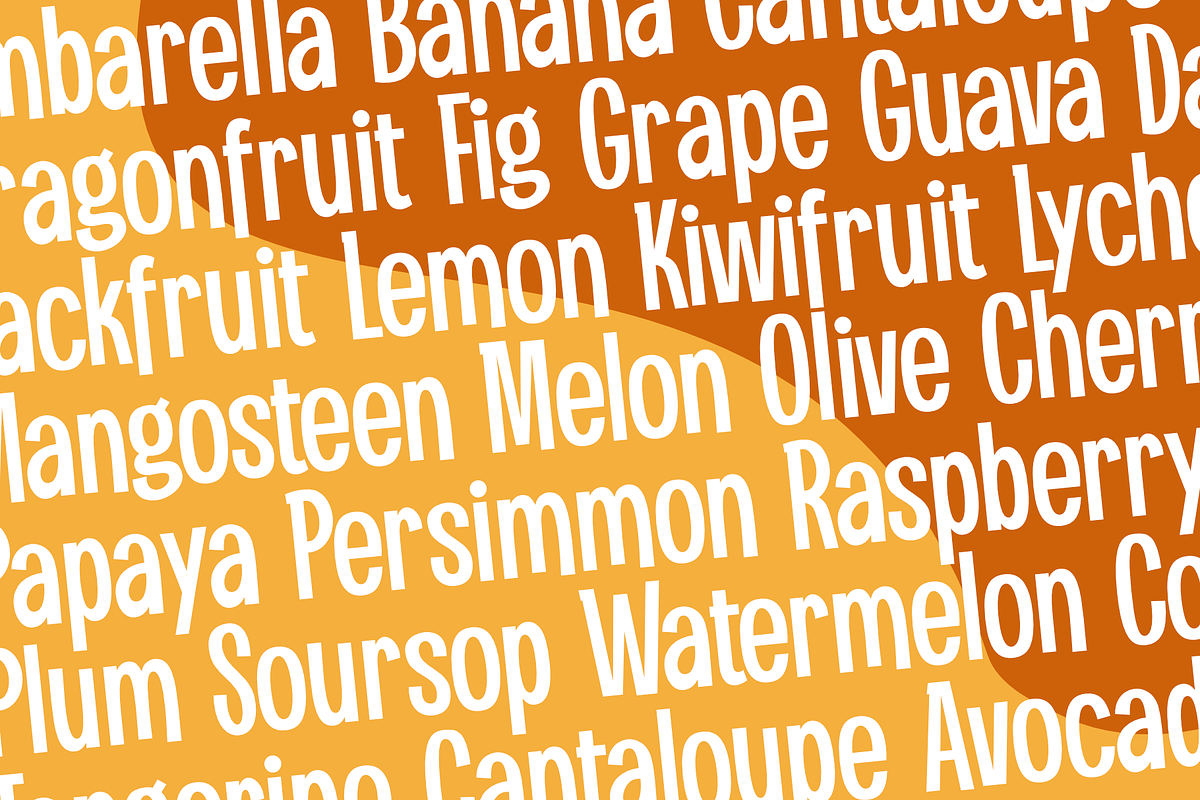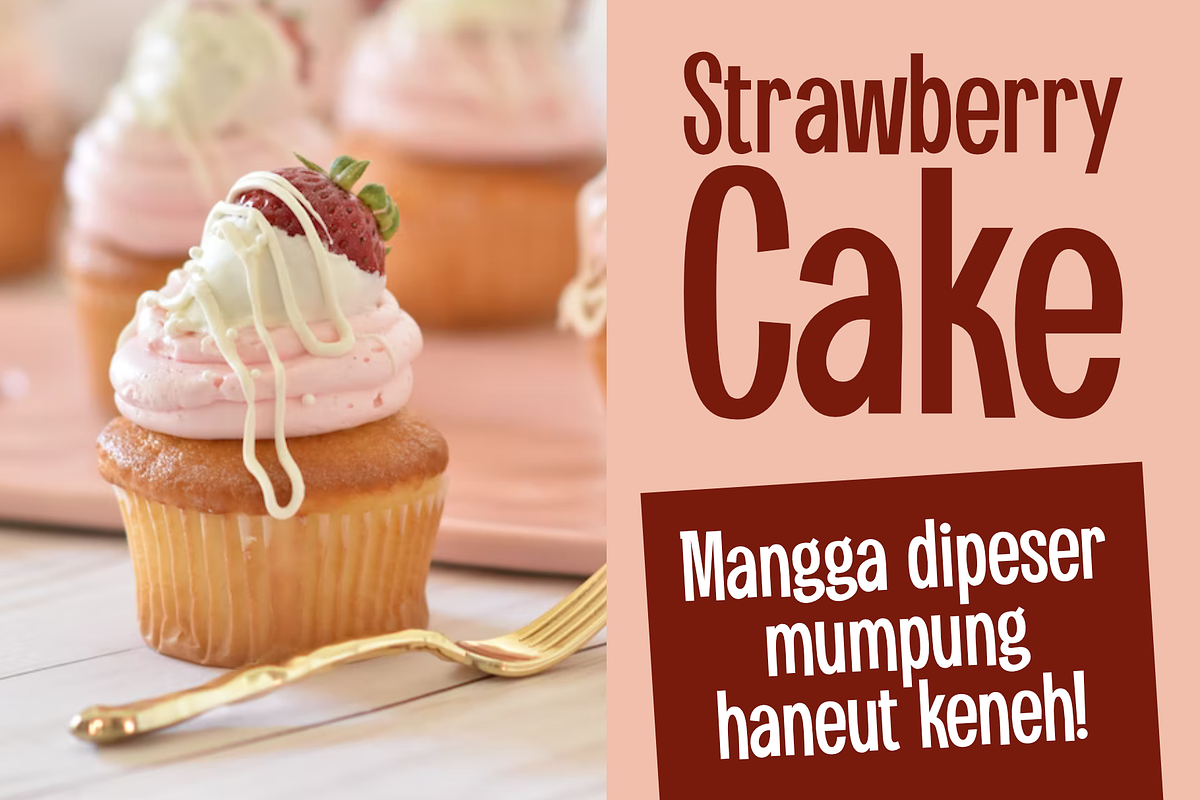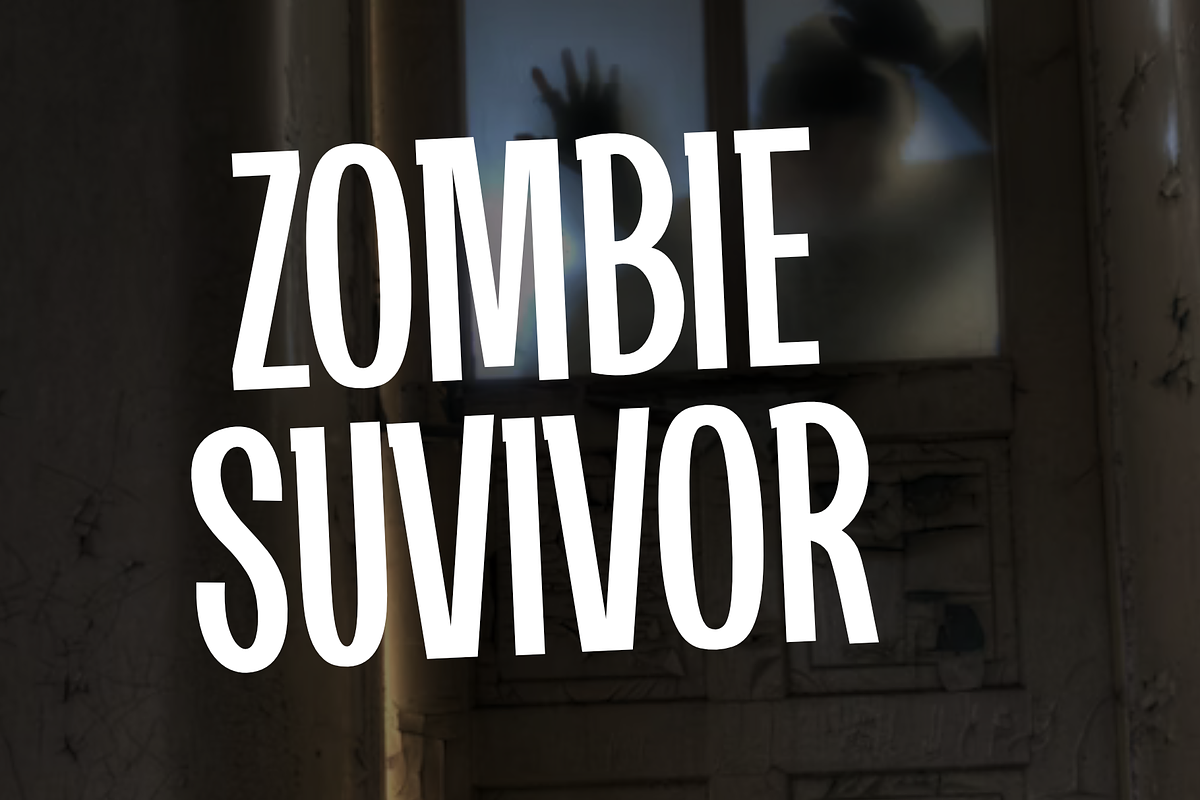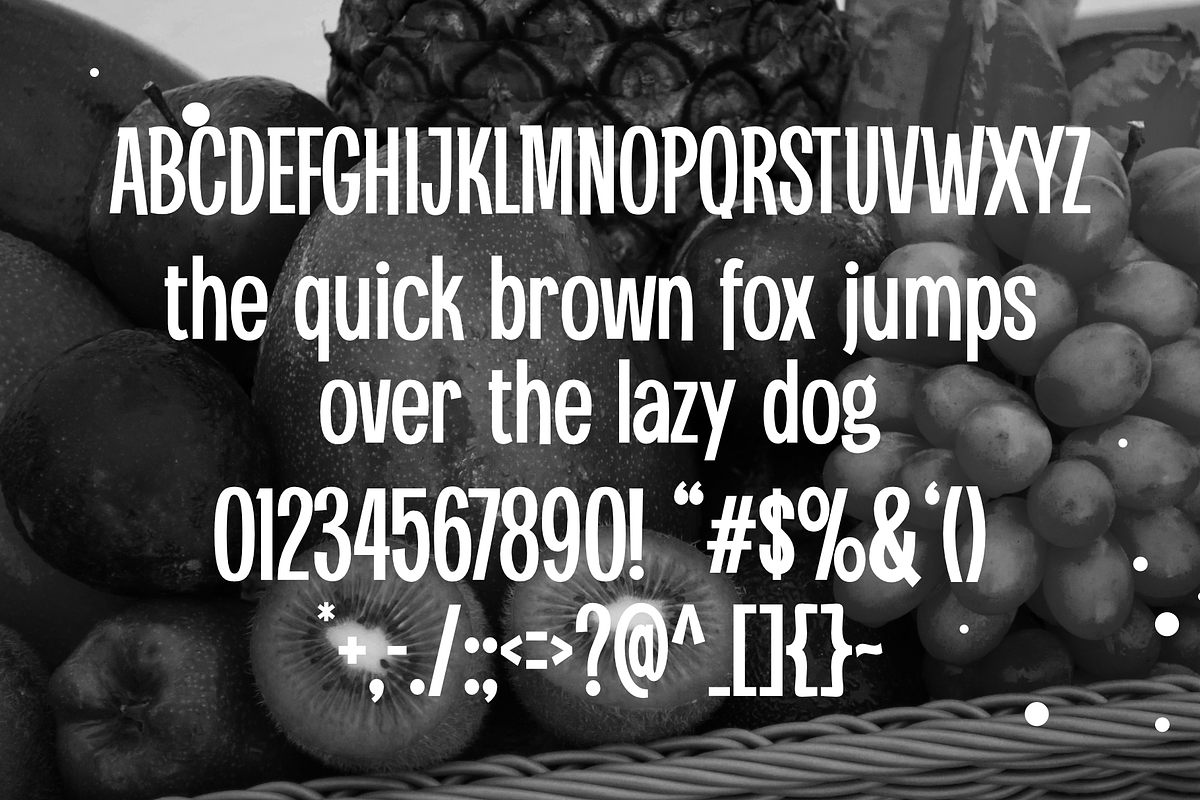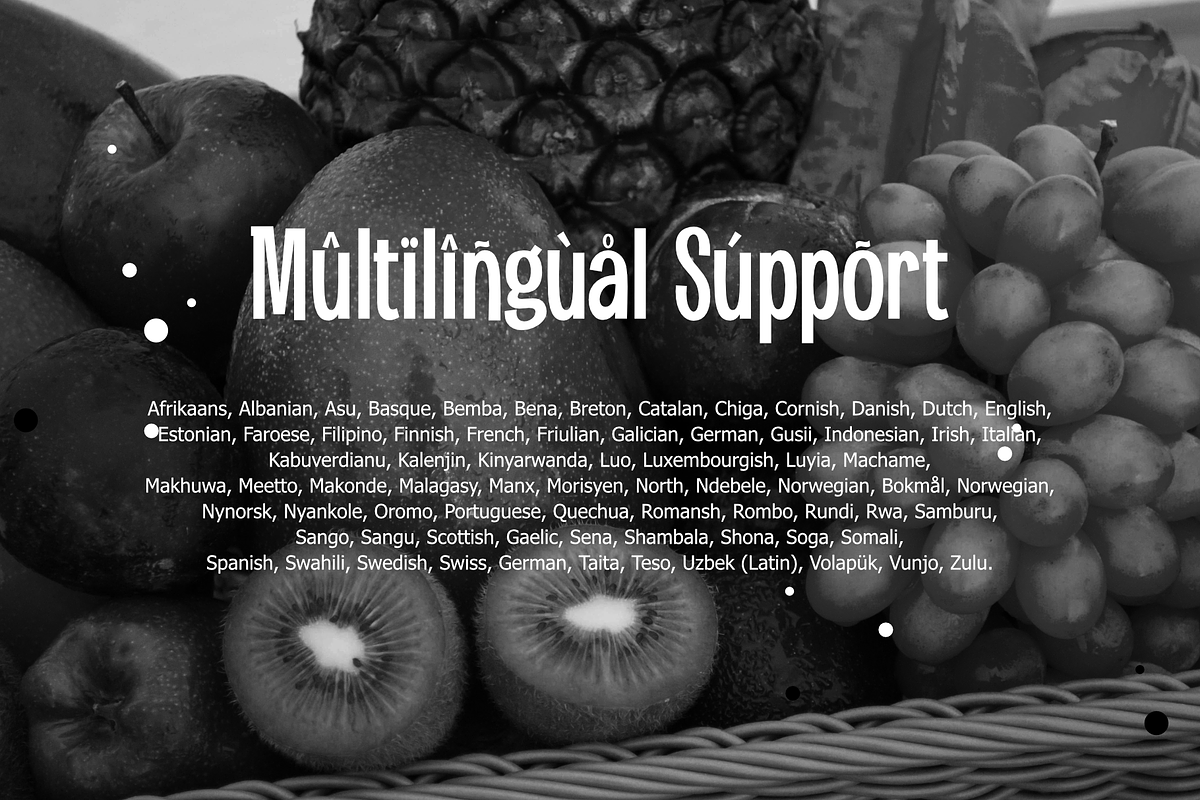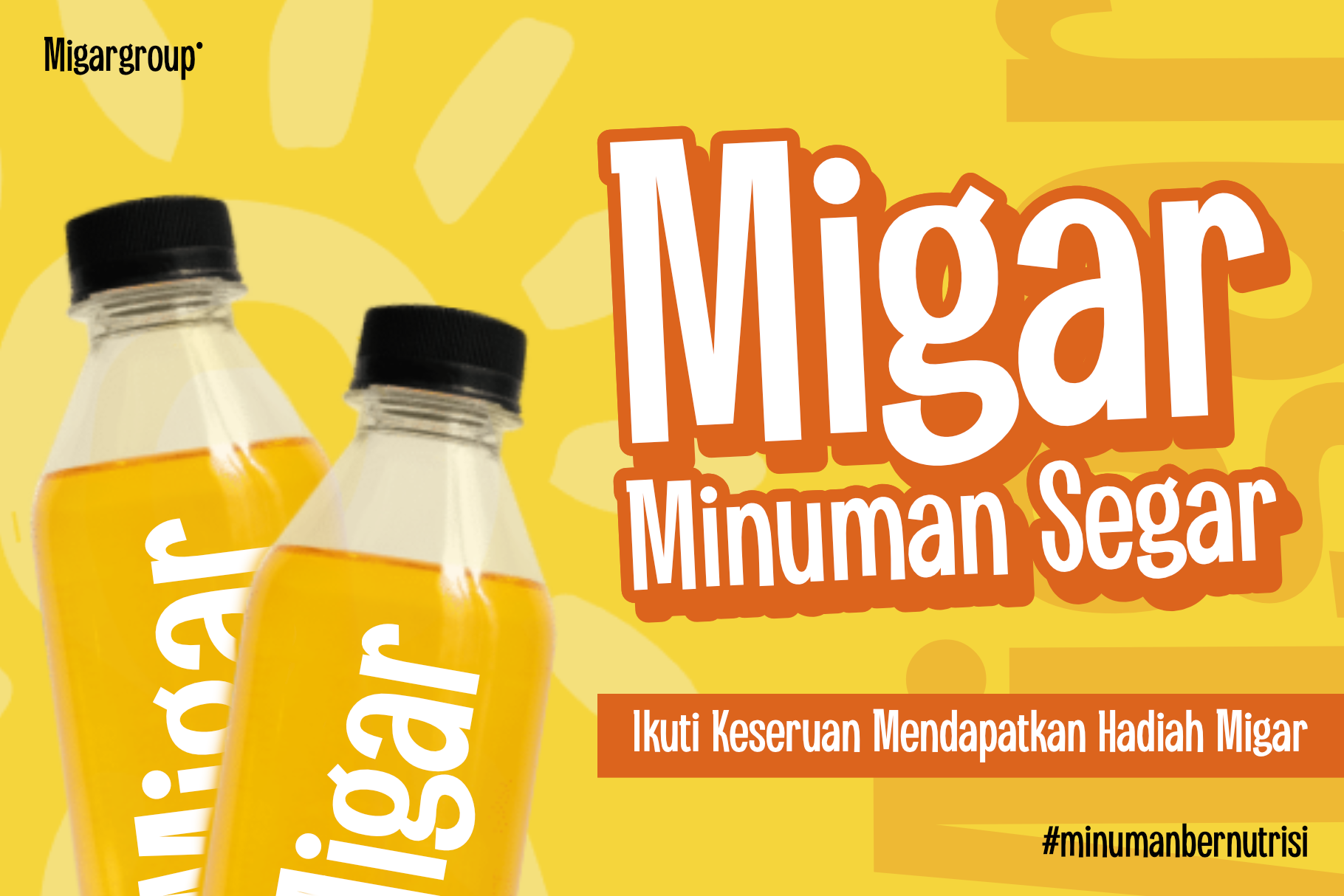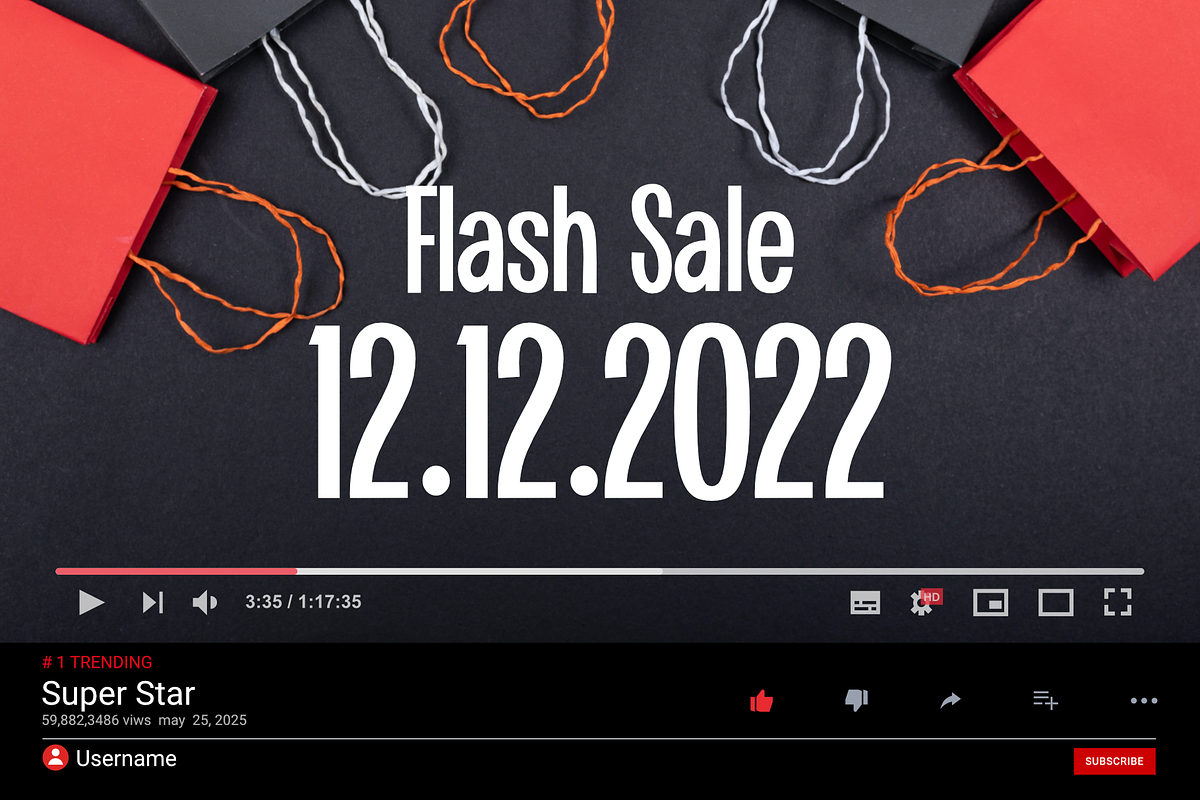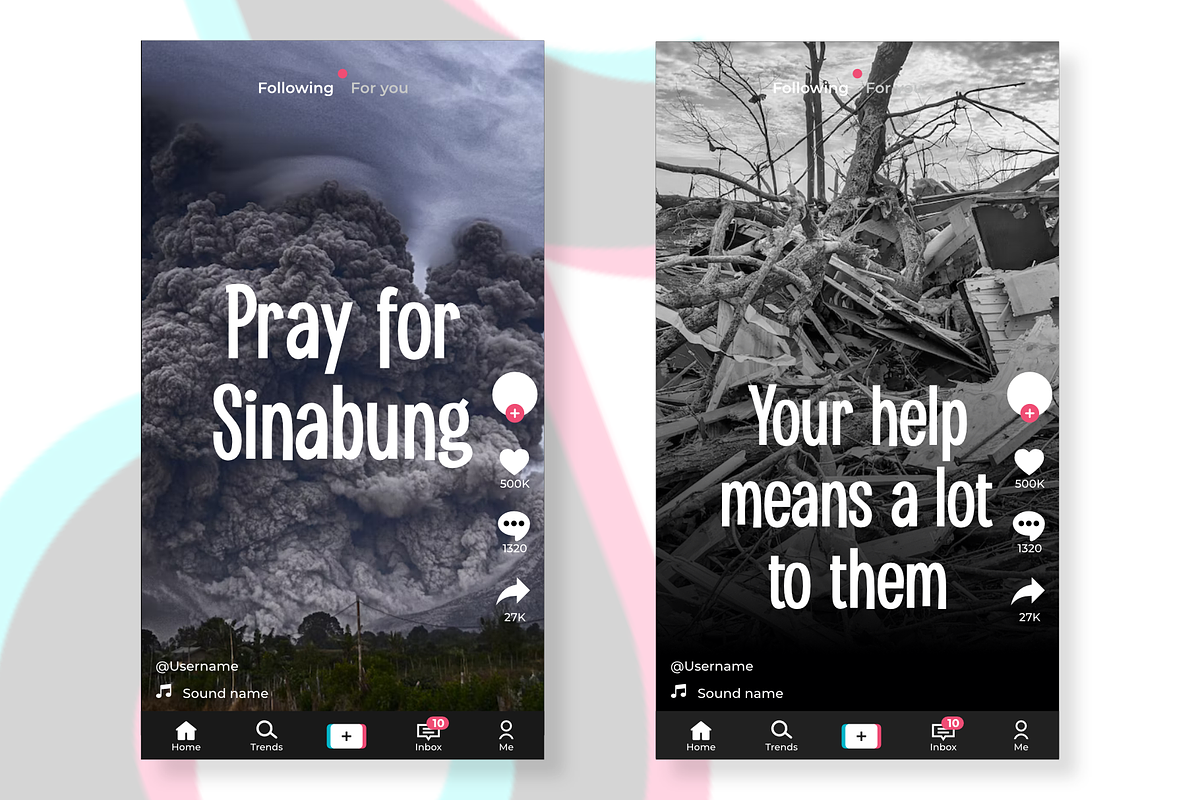
Hegaris Playful Typeface
Hegaris Playful Typeface is a font with a fresh and playful feel. if you ever try Dumadi Font it's a thin and complete version.
This font is suitable for various designs like Youtube Titles, Tiktok Titles, Packaging Designs, Social Media designs, Ad designs, Brand identities, Company, Book Titles, and other cool designs.
- Multilingual Accent